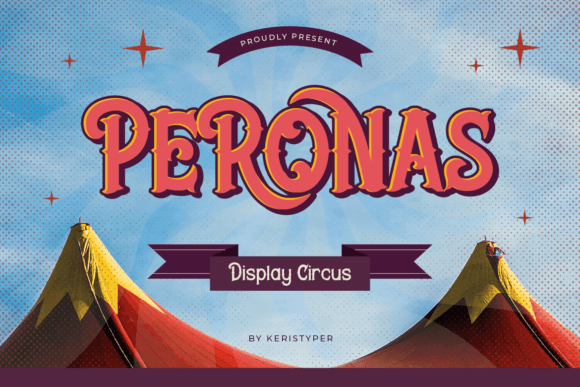
Introducing Peronas Font: A Dazzling Display Font That Will Make Your Designs Pop!
Journey back to the captivating era of American circuses and carnivals with Peronas Font, a mesmerizing display font crafted to ignite creativity and captivate audiences. Peronas draws inspiration from the captivating world of circus and carnival signage, embodying the vibrancy, intrigue, and larger-than-life aesthetic that defines this captivating era.
With its playful curves, bold strokes, and eye-catching details, Peronas is not just a font; it's a captivating spectacle that will transform your designs into extraordinary creations. Picture the thrill of the crowd as they gaze upon your posters, flyers, or social media posts, captivated by the lively energy Peronas exudes.
Peronas is a versatile performer, effortlessly adapting to a multitude of creative endeavors. Whether you're a seasoned graphic designer, a budding entrepreneur, or simply a passionate creator seeking to leave a lasting impression, Peronas is your ultimate companion. Unleash your imagination and let Peronas guide you through a world of limitless design possibilities.
Step into the spotlight with Peronas Font and elevate your creations to dizzying heights. Experience the magic as your designs come alive with an irresistible charm that draws eyes and ignites imaginations. Peronas is not just a font; it's an artistic masterpiece that will leave an indelible mark on your creative journey.